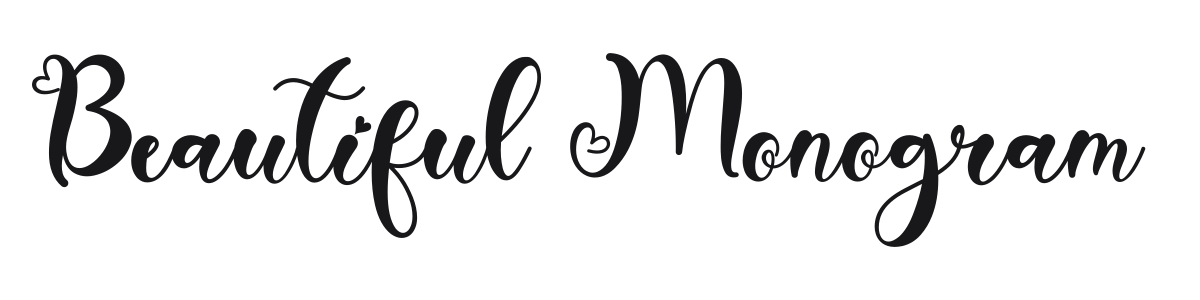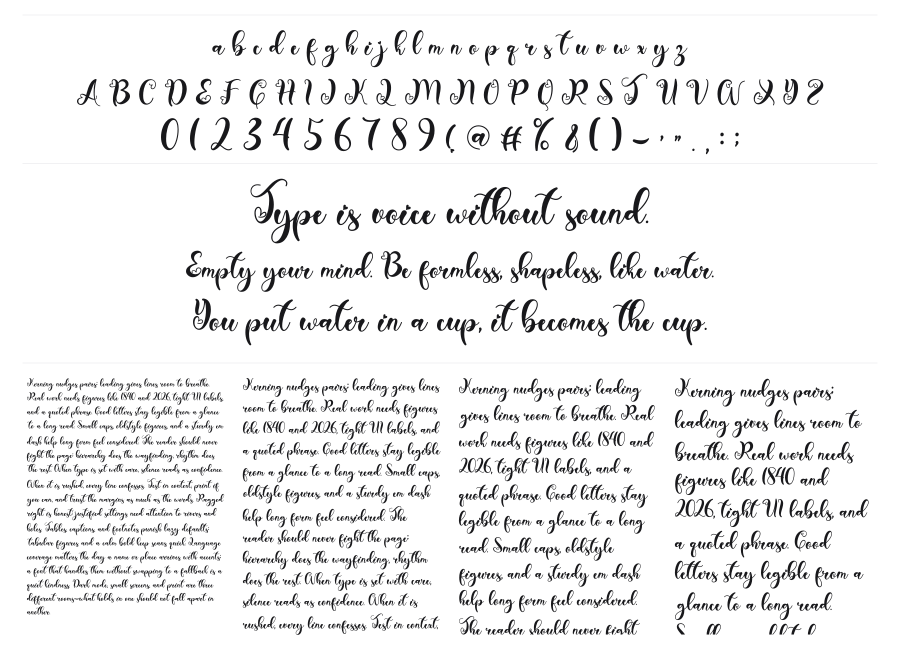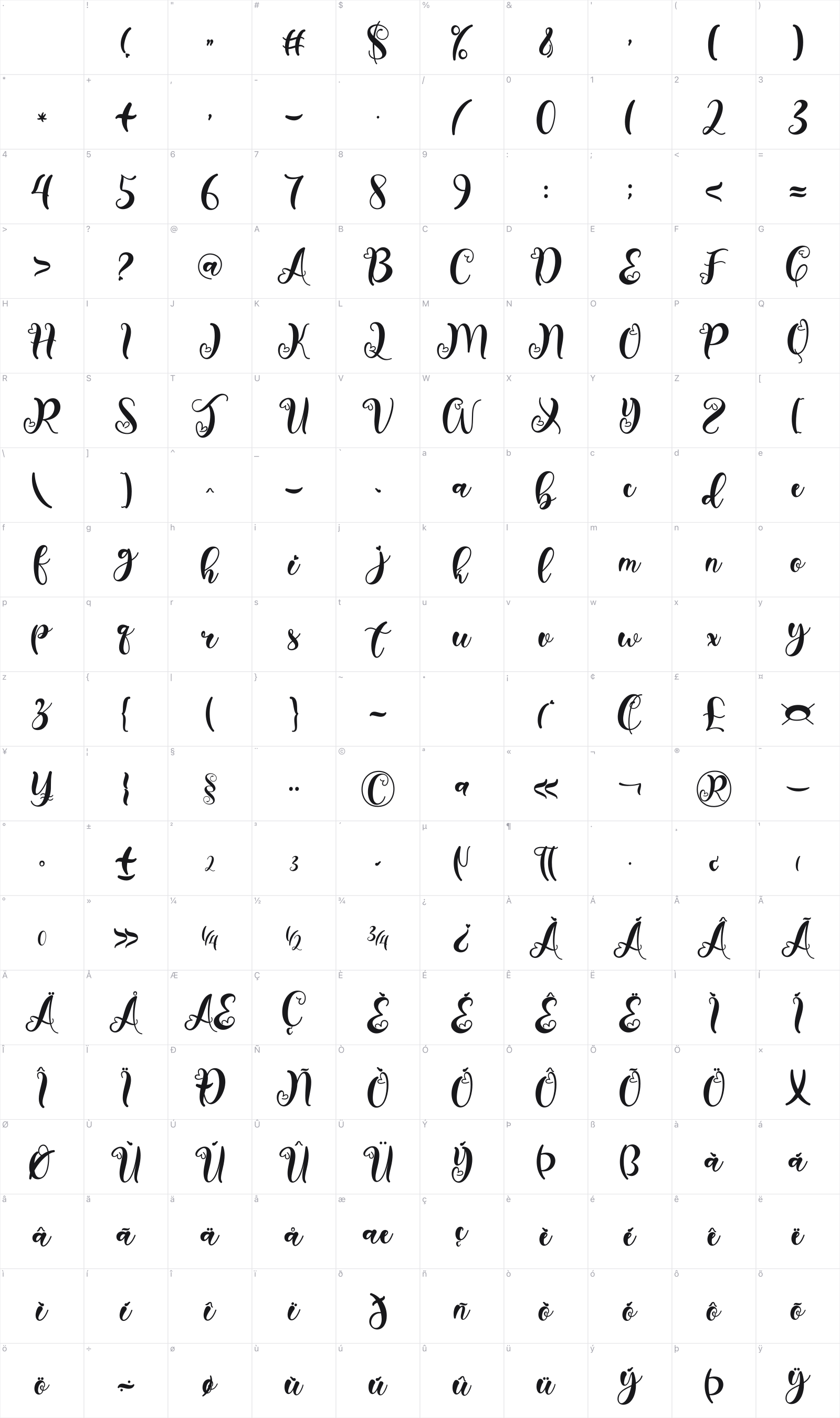
Beautiful Monogram
Beautiful Monogram is a high-contrast calligraphic script with lush swash flourishes and delicate hairline strokes drawn from copperplate tradition. The flowing connections, looping ascenders, and small decorative heart terminals give it a romantic, celebratory personality that sits naturally on wedding stationery, beauty branding, and lifestyle packaging. It brings handcrafted warmth without sacrificing refinement.